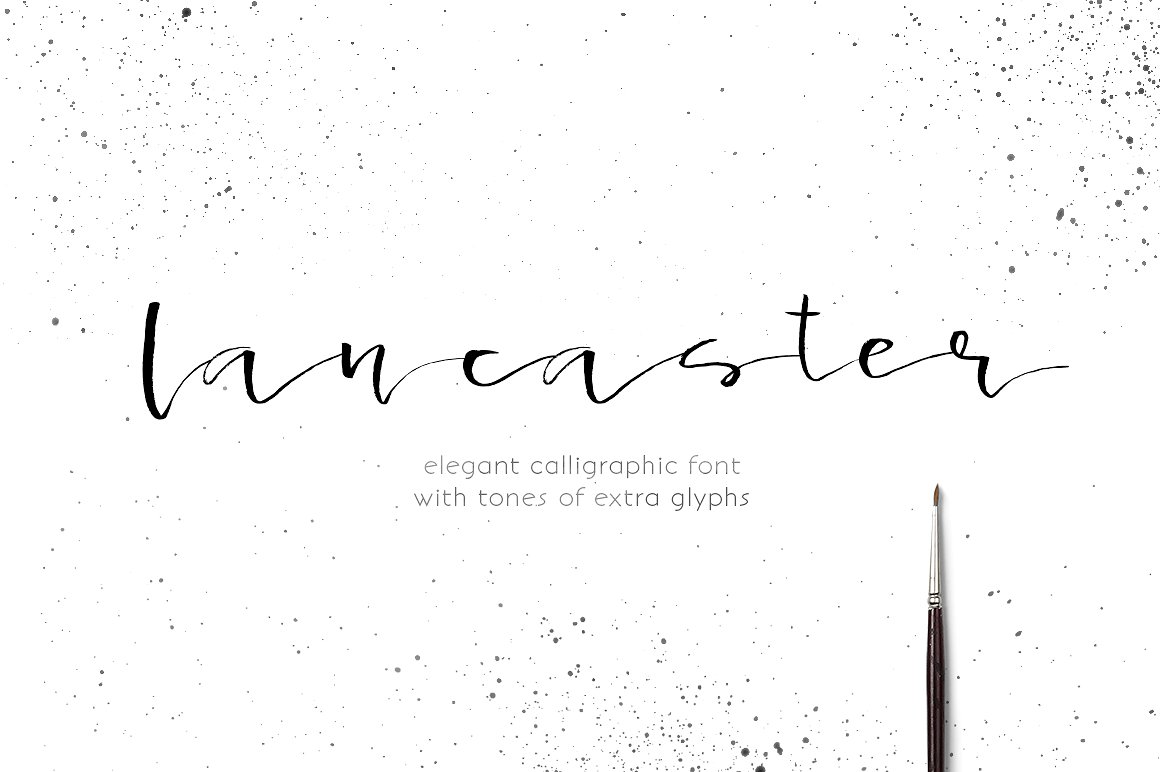
Lancaster Calligraphic
Lancaster Calligraphic Font
I’m sooo pleased to introduce you Lancaster – a super-cool calligraphic font with elegant nature. Sophisticated lines and swashes make this font perfect choice for wedding stationary, all kinds of invitations and branding design.